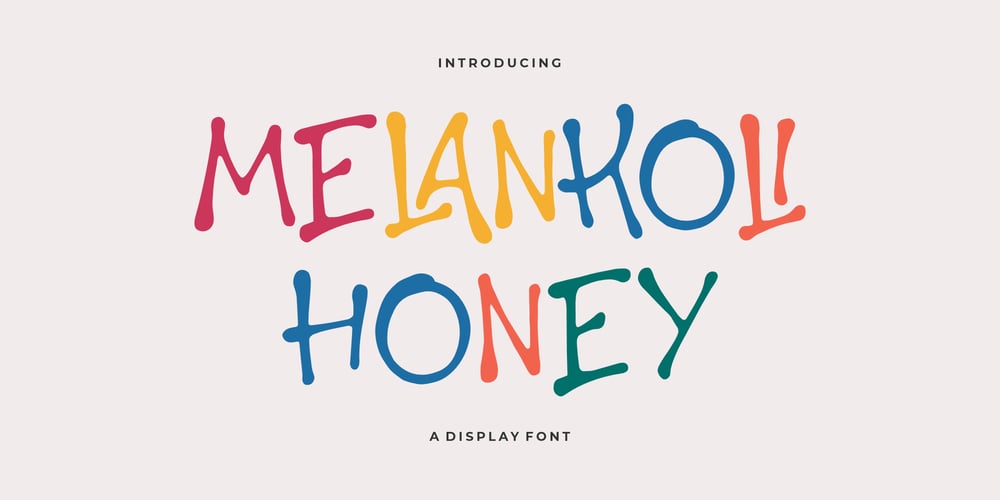
Melankoli Honey Font Family was designed by Heru Utama Putra and published by Letterena Studios. Melankoli Honey contains 2 styles and family package options. Melankoli Honey is a lovely and timeless handwritten display font. It is the best choice for creating eye catching logos, branding and quotes. Every letter has a unique and beautiful touch, which will make your design come alive!